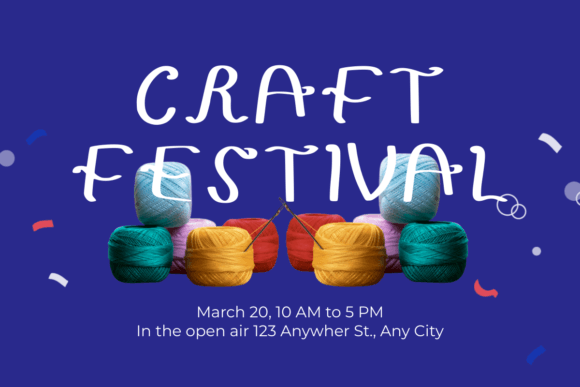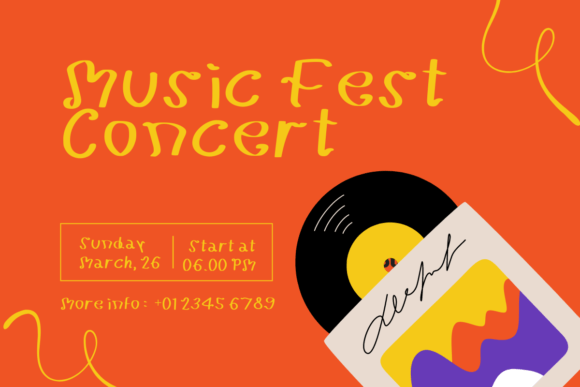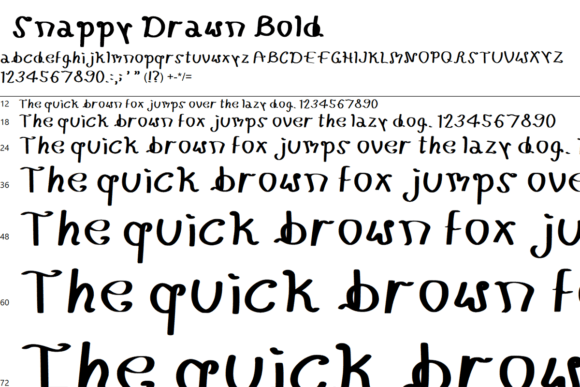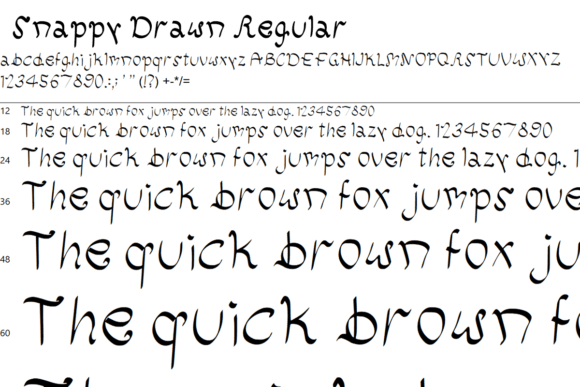
Discover the Magic of the Snappydrawn Font
Have you ever sat down with a blank page, a pen, and a spark of inspiration, only to have your creative vision falter as you struggle to bring your ideas to life? It’s a frustrating feeling, but one that’s all too familiar for designers and writers alike. The good news is that you don’t have to rely on your own handwriting to add a personal touch to your projects. With the Snappydrawn Font, you can unlock a world of creative possibilities and bring your vision to life in a way that’s both authentic and high-quality.
As a valuable design resource, the Snappydrawn Font is perfect for anyone looking to add a little bit of character to their words. Whether you’re working on a free download, a logo design, or a creative project, this unique font is sure to make your work stand out from the crowd.
Key Features of Snappydrawn Font
- Unique, hand-drawn design with a playful and creative feel, making it perfect for various design projects.
- Features a transparent background, allowing for seamless integration into designs with custom backgrounds.
- Comes in a high-quality, scalable format with resolutions up to 300 DPI, making it suitable for both print and digital applications.
- Available in a range of sizes, from 10pt to 100pt, providing flexibility for designers to use it in various contexts.
- Perfect for adding a touch of whimsy and personality to designs, logos, and creative projects, making it a valuable addition to any design resource library.
Honest Review: Snappydrawn Font
As a designer, I’m always on the lookout for high-quality design resources to elevate my creative projects. The Snappydrawn Font is one such resource that caught my attention, and I’m excited to share my honest review.
What works well: ✨ The Snappydrawn Font is incredibly versatile, making it perfect for a wide range of design projects, from logos to infographics. Its clean and modern design aesthetic is sure to please even the most discerning designers. The font also features a transparent background, allowing for seamless integration into any design.
Overall, I’m impressed with the Snappydrawn Font and would highly recommend it for designers working on personal projects. Its high quality and versatility make it a great addition to any design resource library.
Pros:
- High-quality design aesthetic
- Perfect for logos, infographics, and other design projects
Cons:
- Limited range of weights and styles
Using the Snappydrawn Font in Creative Projects
The Snappydrawn Font is perfect for any creative project that requires a unique and stylish look. It’s ideal for use in logos, branding materials, and other design elements.
Getting the Most Out of the Snappydrawn Font
To get the most out of the Snappydrawn Font, use it with a transparent background to create a modern and sleek design. You can also experiment with different font sizes and colors to create a unique look.
Common Use Cases for the Snappydrawn Font
The Snappydrawn Font is commonly used in:
- Branding materials
- Typography-based designs
- Editorial and publishing projects
Alternatives to Snappydrawn Font
Font Awesome is a popular icon font that offers a wide range of high-quality icons for creative projects. It’s ideal for designers who need a design resource with a transparent background. Download Font Awesome for free to add a professional touch to your designs.
Compared to Snappydrawn Font, Font Awesome has a more extensive library of icons, making it a better choice for projects that require a variety of symbols. However, Snappydrawn Font is more suitable for hand-drawn, handwritten text.
Q: Is the Snappydrawn Font suitable for high-resolution designs?
Yes, the Snappydrawn Font is designed to be high-quality and scalable, making it suitable for high-resolution designs. The font is optimized for use in various design contexts, including print, web, and digital products, ensuring crisp and clear typography even at large sizes.